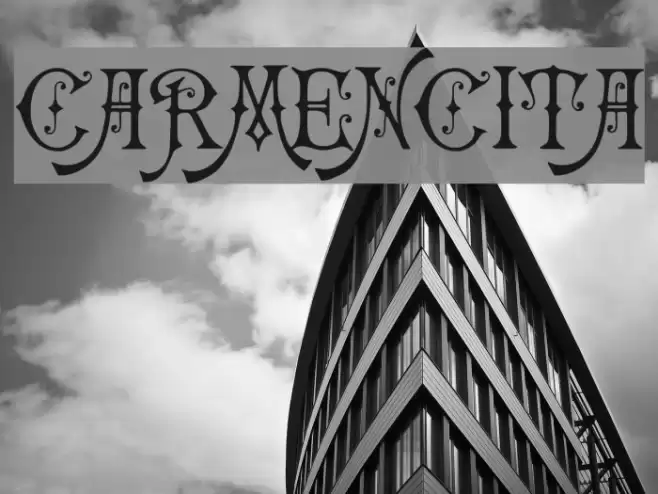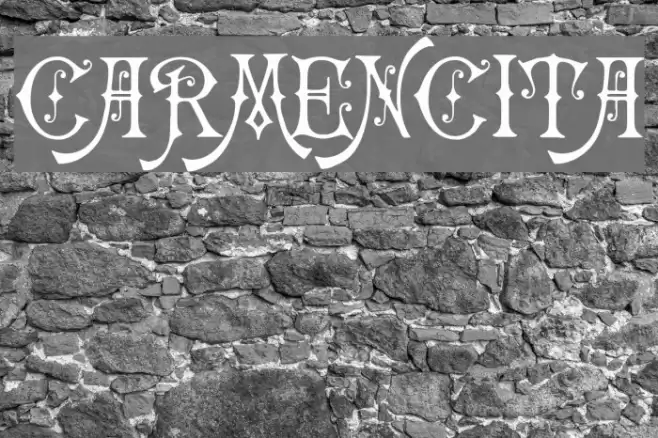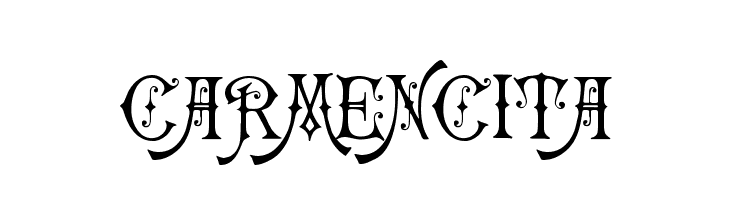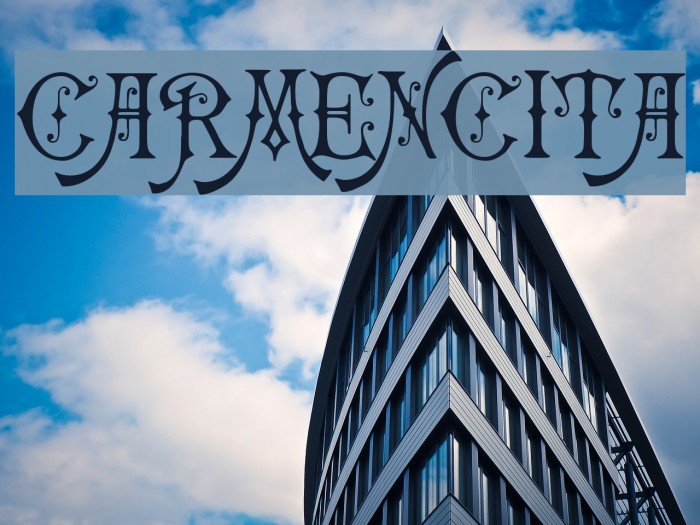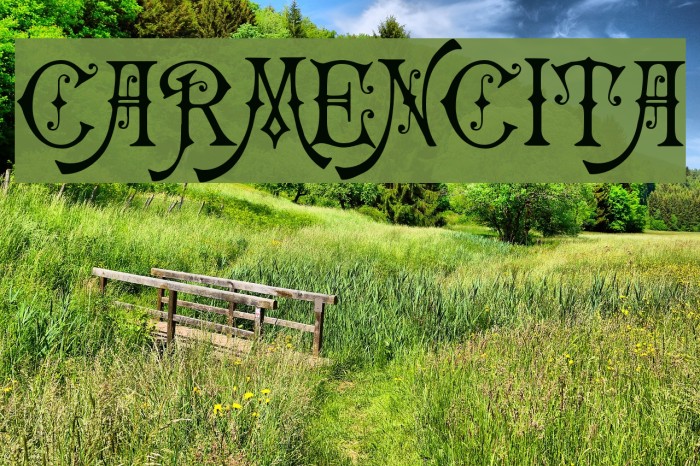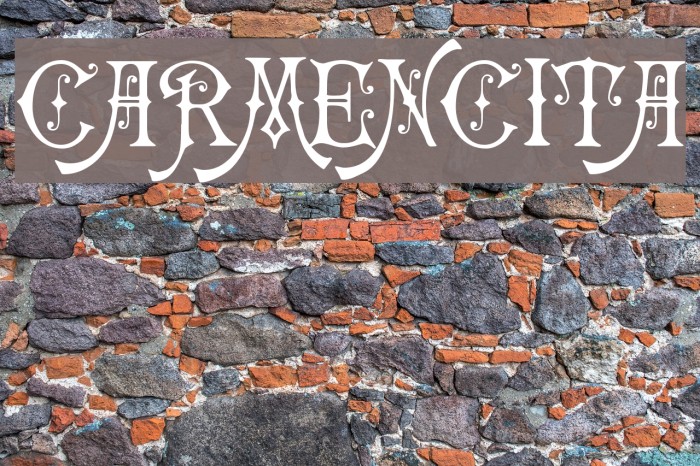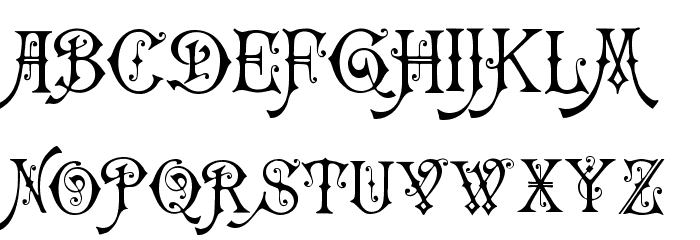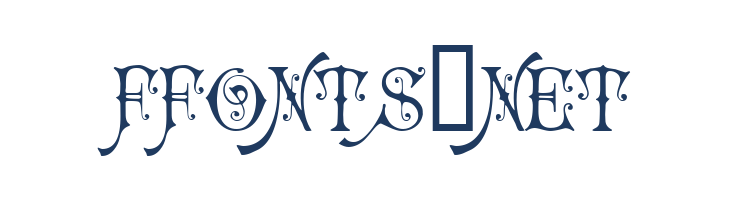
Carmencita Font
Carmencita Description
This font exudes a classic and ornate style, reminiscent of traditional calligraphy with a modern twist. The uppercase letters are embellished with intricate flourishes and decorative elements that give each character a unique and artistic flair. The overall design is bold and striking, making it ideal for projects that require a touch of elegance and sophistication. The characters are well-defined, with a consistent weight and width that ensures readability while maintaining its decorative appeal. The font's high contrast in stroke thickness adds to its dramatic and eye-catching appearance.
An ornate and decorative font with intricate flourishes and high contrast from Gothic fonts.
- Proposed Projects: Ideal for wedding invitations, luxury branding, book covers, and decorative signage.
- Overall Style: Classic
- Use Case: Logos, Headlines, Decorative text